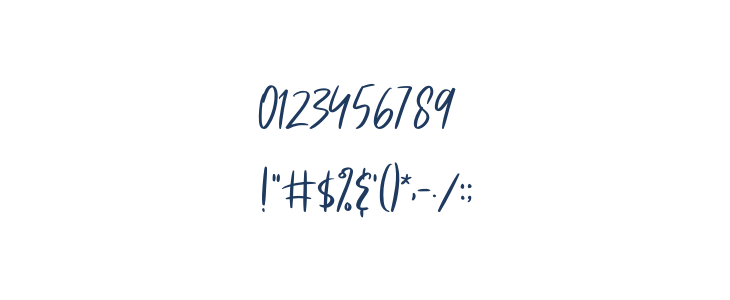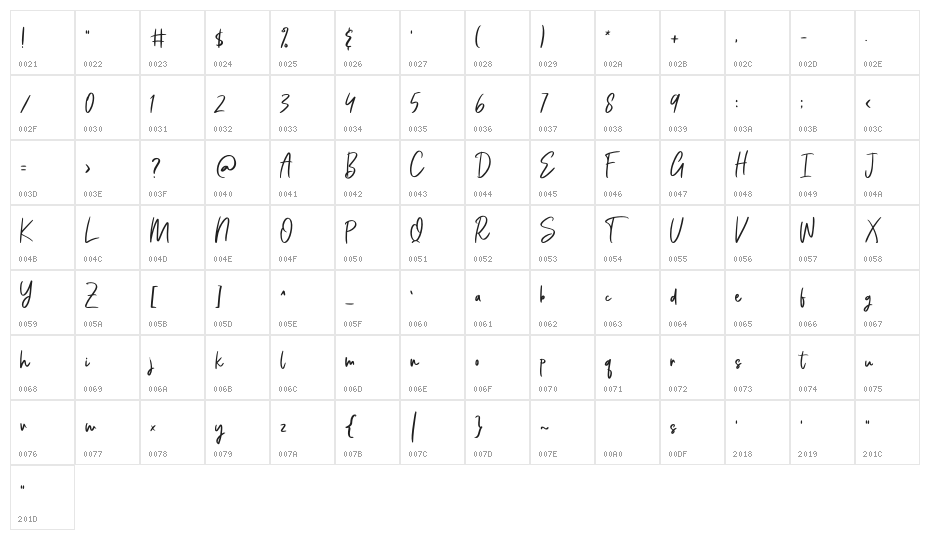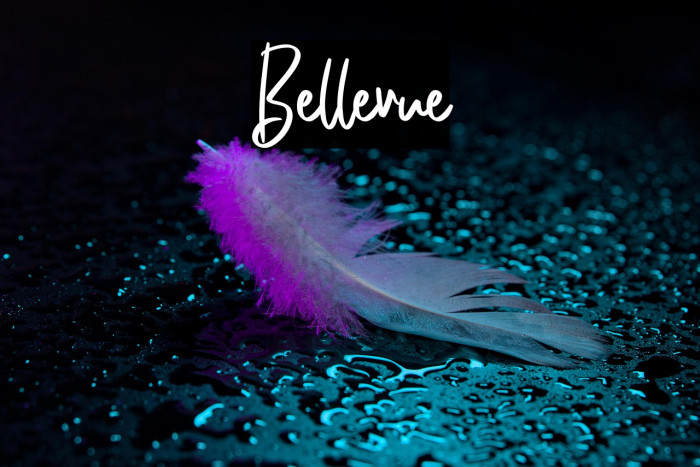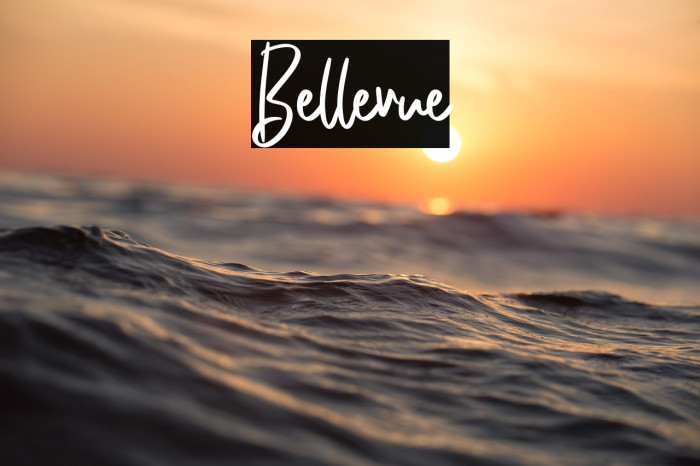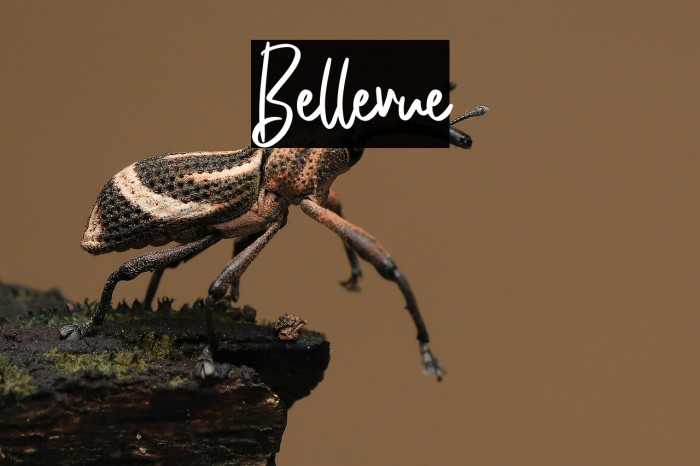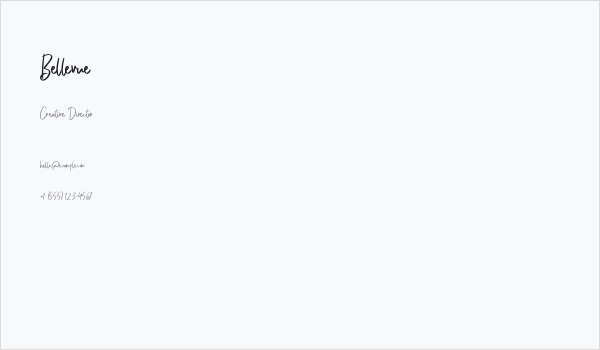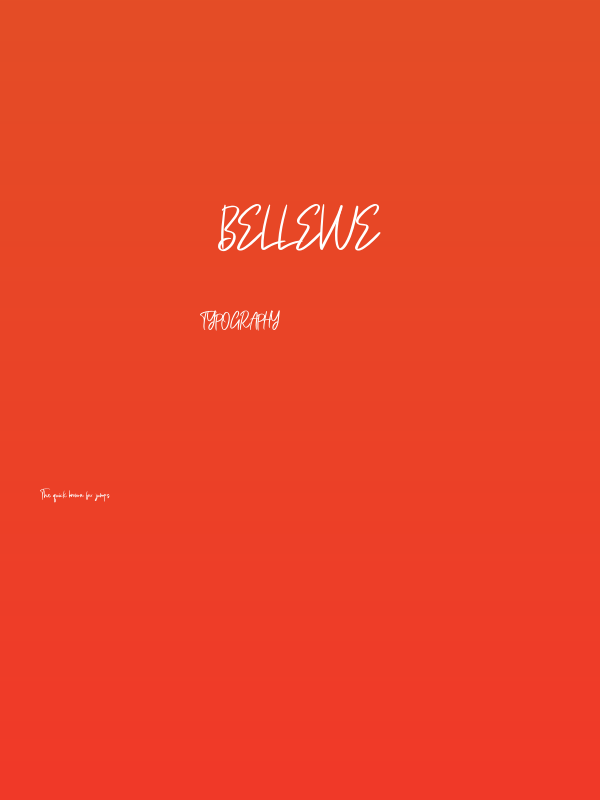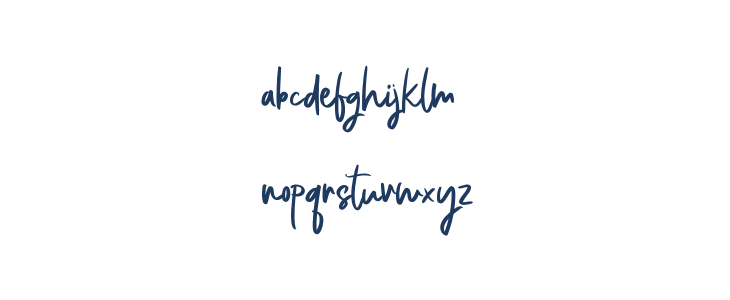
Bellevue Font
Bellevue Description
This font exudes a lively and expressive handwritten style, characterized by its fluid and dynamic strokes. The uppercase letters are bold and slightly slanted, giving a sense of movement and energy. The lowercase letters maintain a consistent flow, with some characters featuring unique loops and curves that add personality. Numbers and special characters are crafted with the same playful and informal touch, making the font versatile for creative projects. The overall appearance is modern and artistic, suitable for designs that require a personal and approachable feel.
BELLEVUE UPPERCASE
BELLEVUE LOWERCASE
BELLEVUE OTHER CHARS